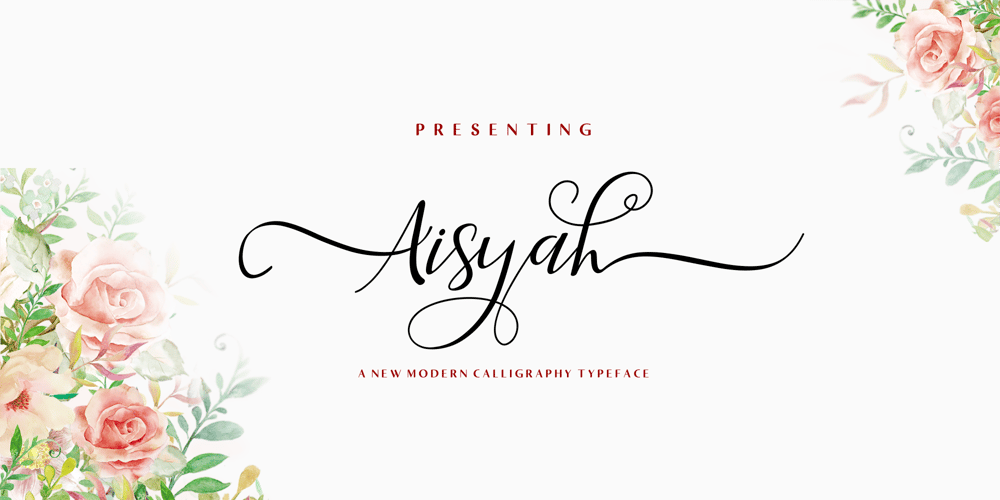
Aisyah Font Family was designed by Murtadha bin Sulaiman and published by Malindo Creative. Aisyah contains 1 styles and family package options. Aisyah is a modern hand-based typography, This font is made up of irregularly flowing letters, both between top-down and with subsequent letters,which makes it suitable for Logotype, posters, businness cards, merchandise, wedding invitations, greeting cards, banners blogs, clothing, water-based paint designs / prints, correspondence, quotes and more!.Aisyah has given PUA encoded (fonts with special code).This Font Equipped:-Uppercase-Lowercase-Figures & Punctuation-Stylistic Alternatives-Ligatures-Language SupportTo enable the OpenType Stylistic alternates, you need a program that supports OpenType features such as,Adobe Indesign,Adobe Illustrator CS & CorelDraw X6-X7, Microsoft Word 2010 or later versions.Files include: Aisyah otf.-If you have any questions, please contact me at. malindocreative@gmail.com.-Thanks for support-Feel free to contact me if you have any questions, I am happy to help you